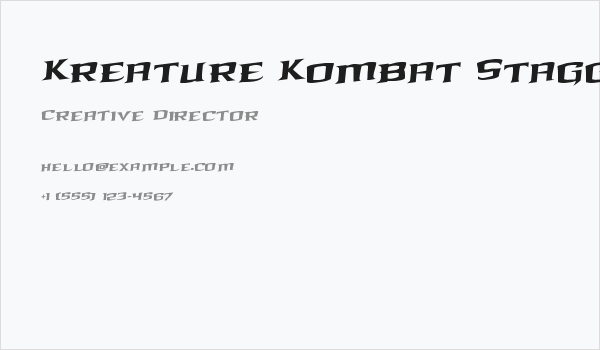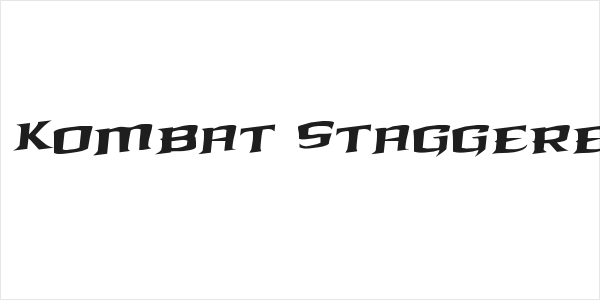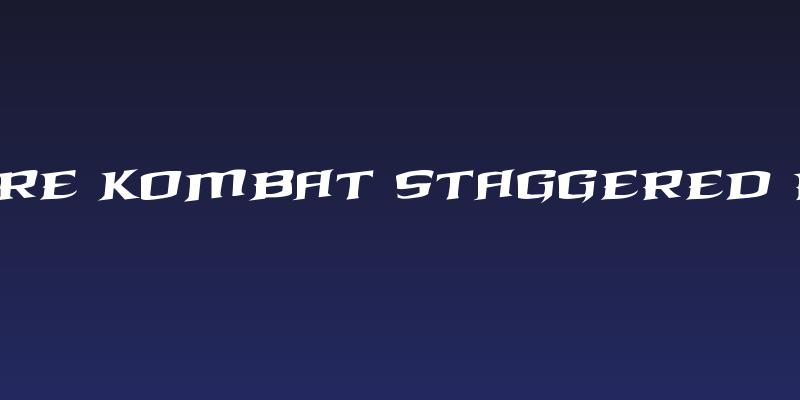
Kreature Kombat Staggered Rotalic Font
Kreature Kombat Staggered Rotalic Description
This font features a bold and dynamic style with a staggered, italicized appearance that gives it a sense of movement and energy. The characters are sharply angled, with a distinct, aggressive flair that makes them stand out. The uppercase and lowercase letters maintain a consistent design, with the uppercase being slightly more pronounced. Numbers and special characters follow the same stylistic cues, ensuring uniformity across all glyphs. The font's unique design makes it ideal for projects that require a strong visual impact.
| Proposed Projects | Ideal for video game titles, sports branding, action movie posters, and edgy graphic designs. |